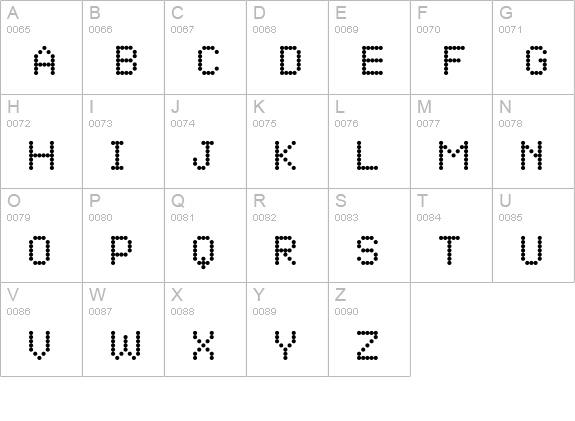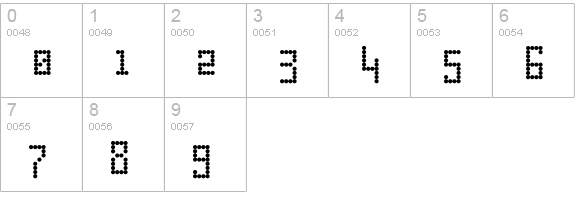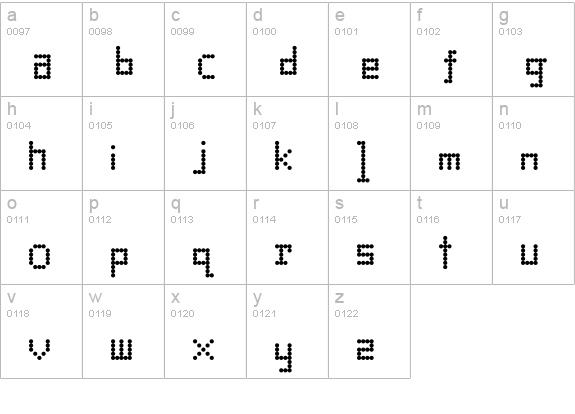
Dotto-Alphabet is a charming and versatile font that combines a playful aesthetic with a touch of sophistication. Its unique design features whimsical dots scattered throughout each letter, adding a fun and dynamic element to any project. Whether you're looking to create eye-catching headlines or add a whimsical touch to your designs, Dotto-Alphabet is the perfect choice. What makes Dotto-Alphabet even more appealing is that it is available for free download at FontsMarket.com. This means that you can easily access this delightful font and incorporate it into your projects without any cost. With its wide range of characters and glyphs, Dotto-Alphabet offers endless creative possibilities for designers, artists, and anyone looking to add a touch of whimsy to their work. Don't miss out on the opportunity to enhance your designs with the playful charm of Dotto-Alphabet. Download this font for free today and let your creativity shine!